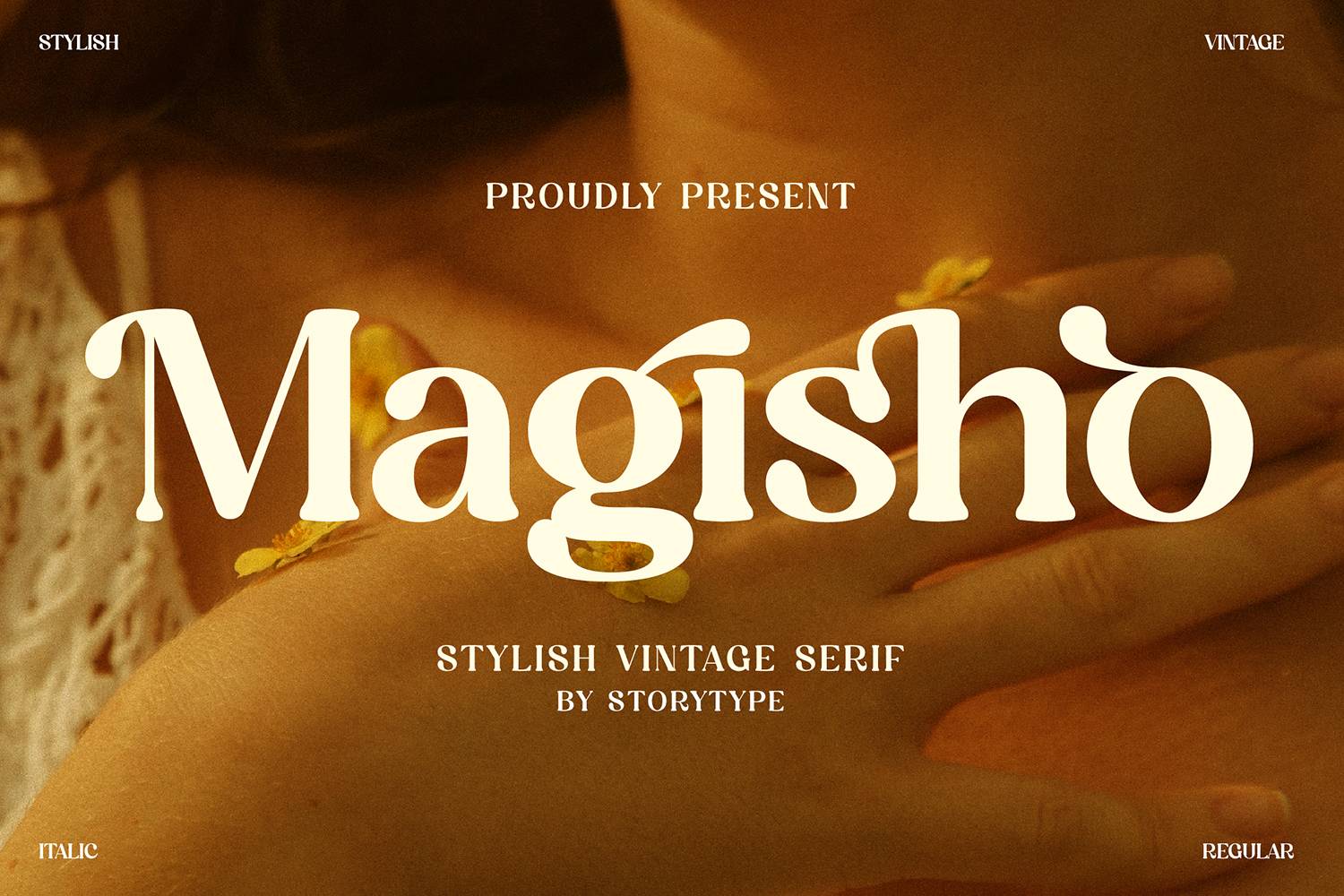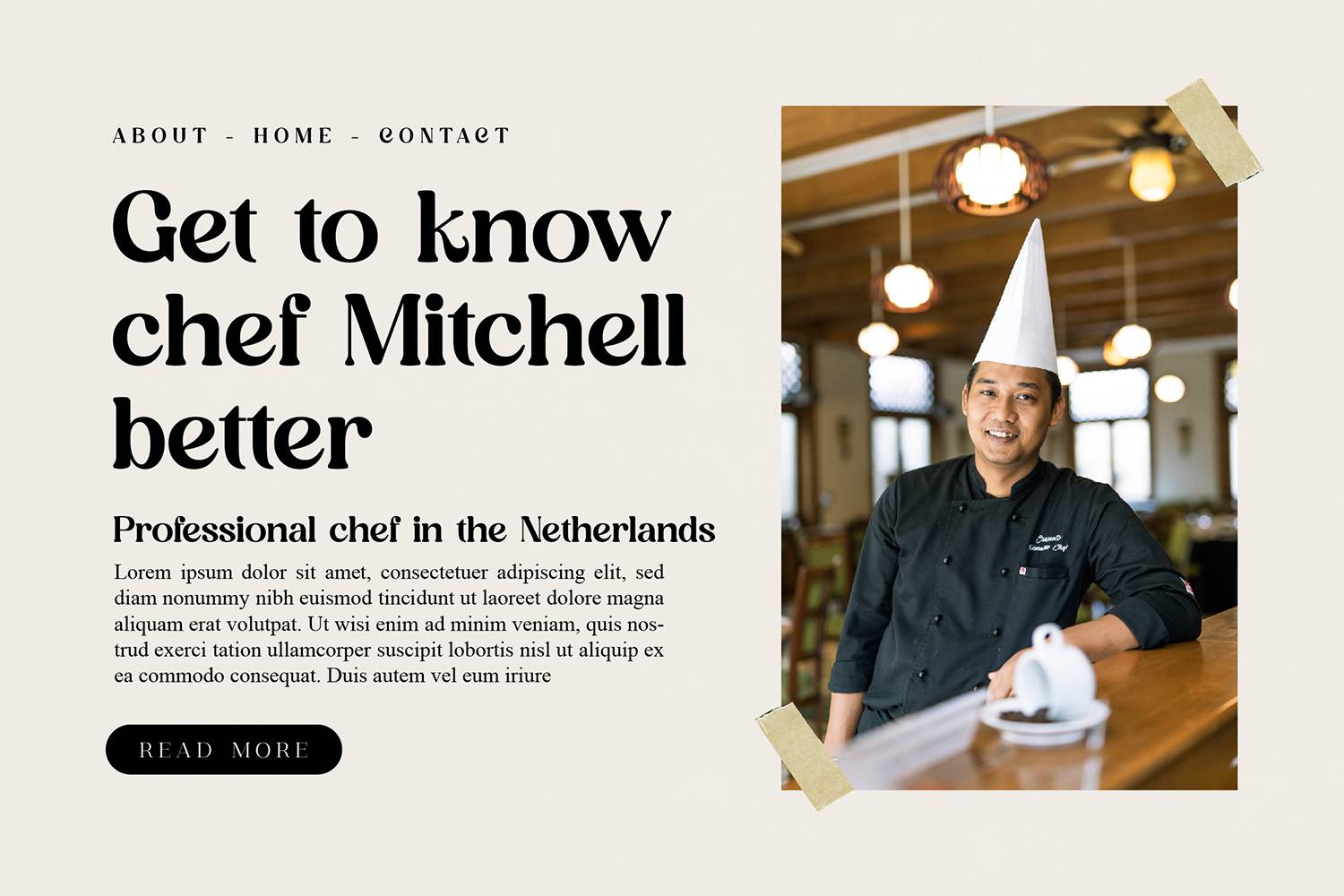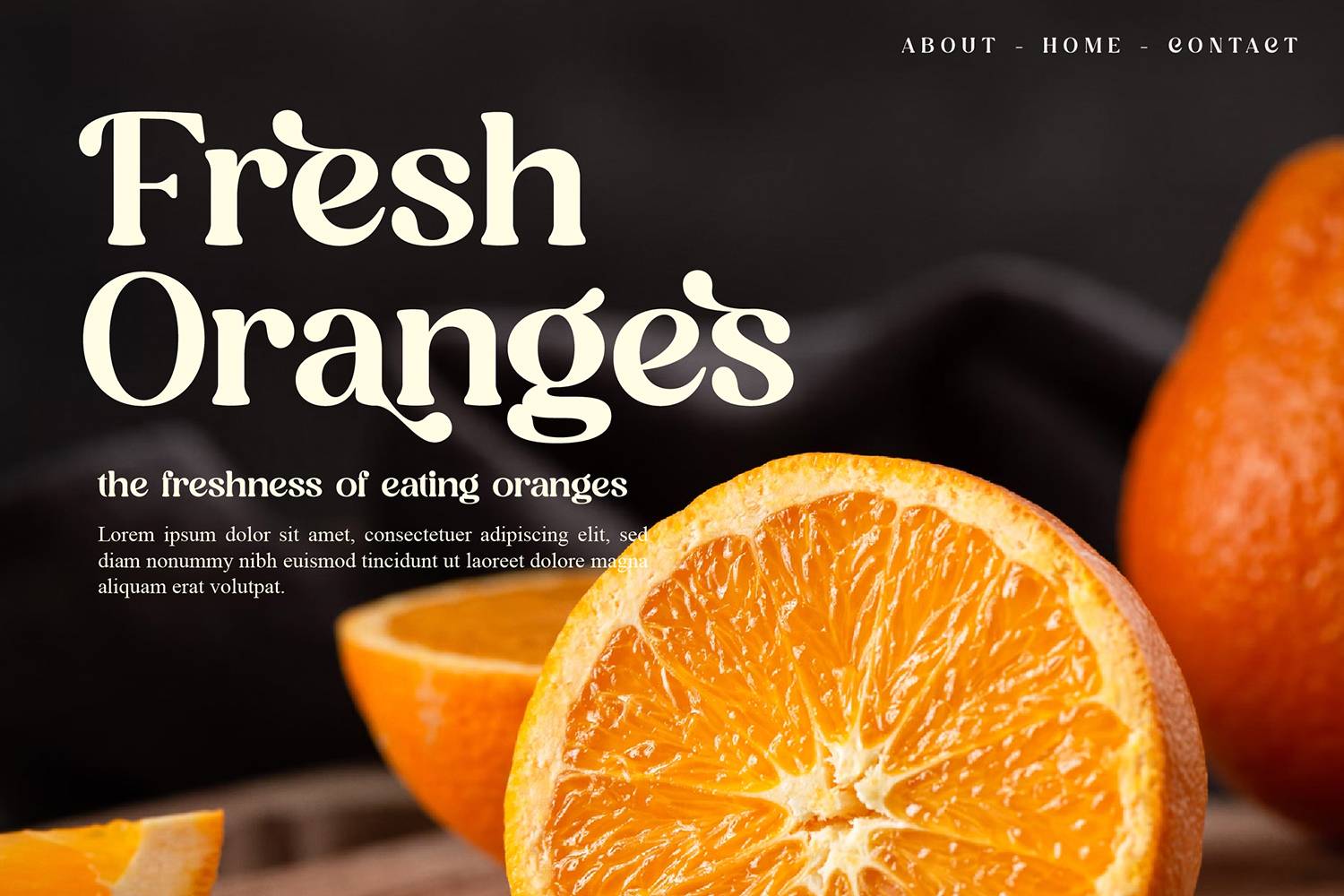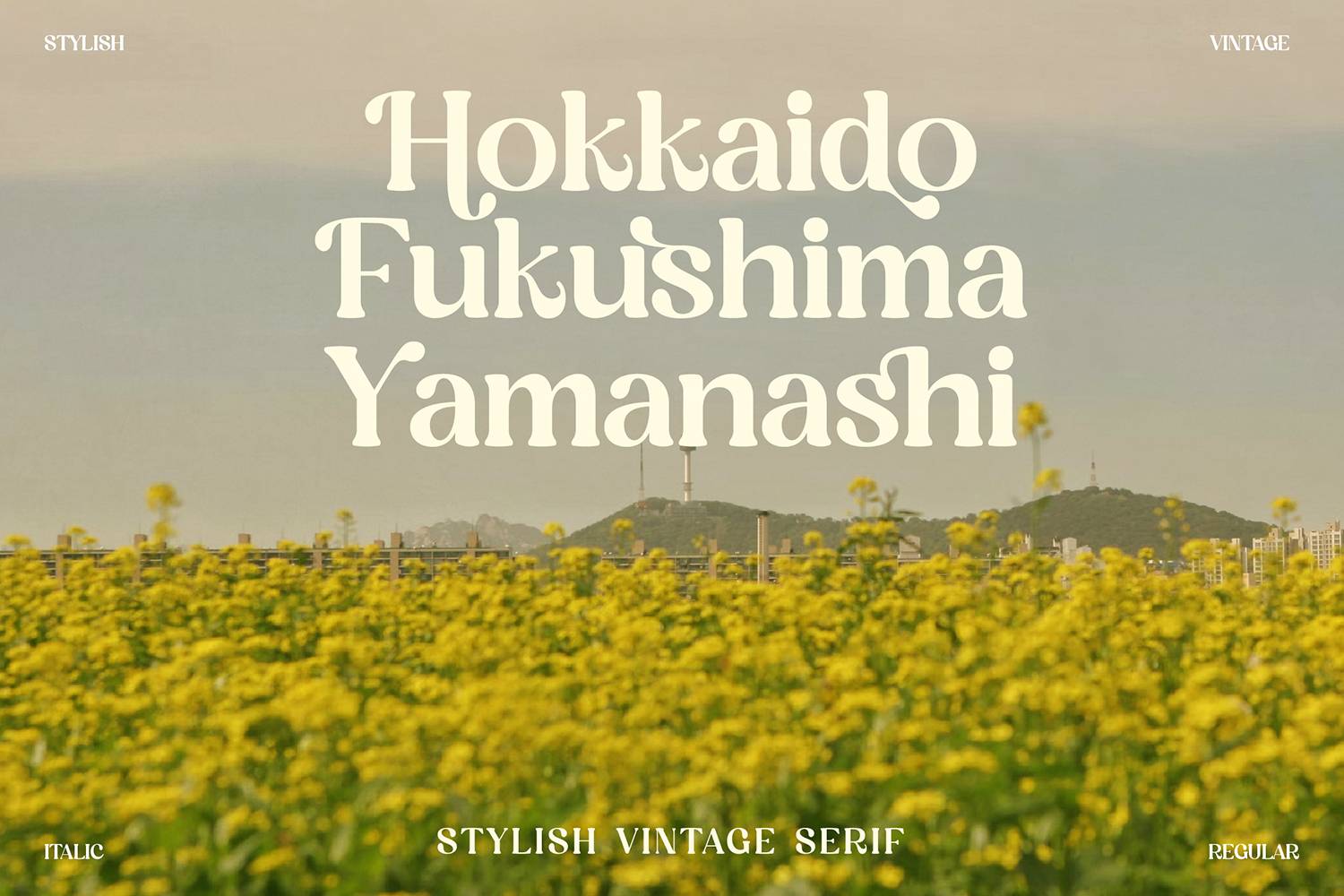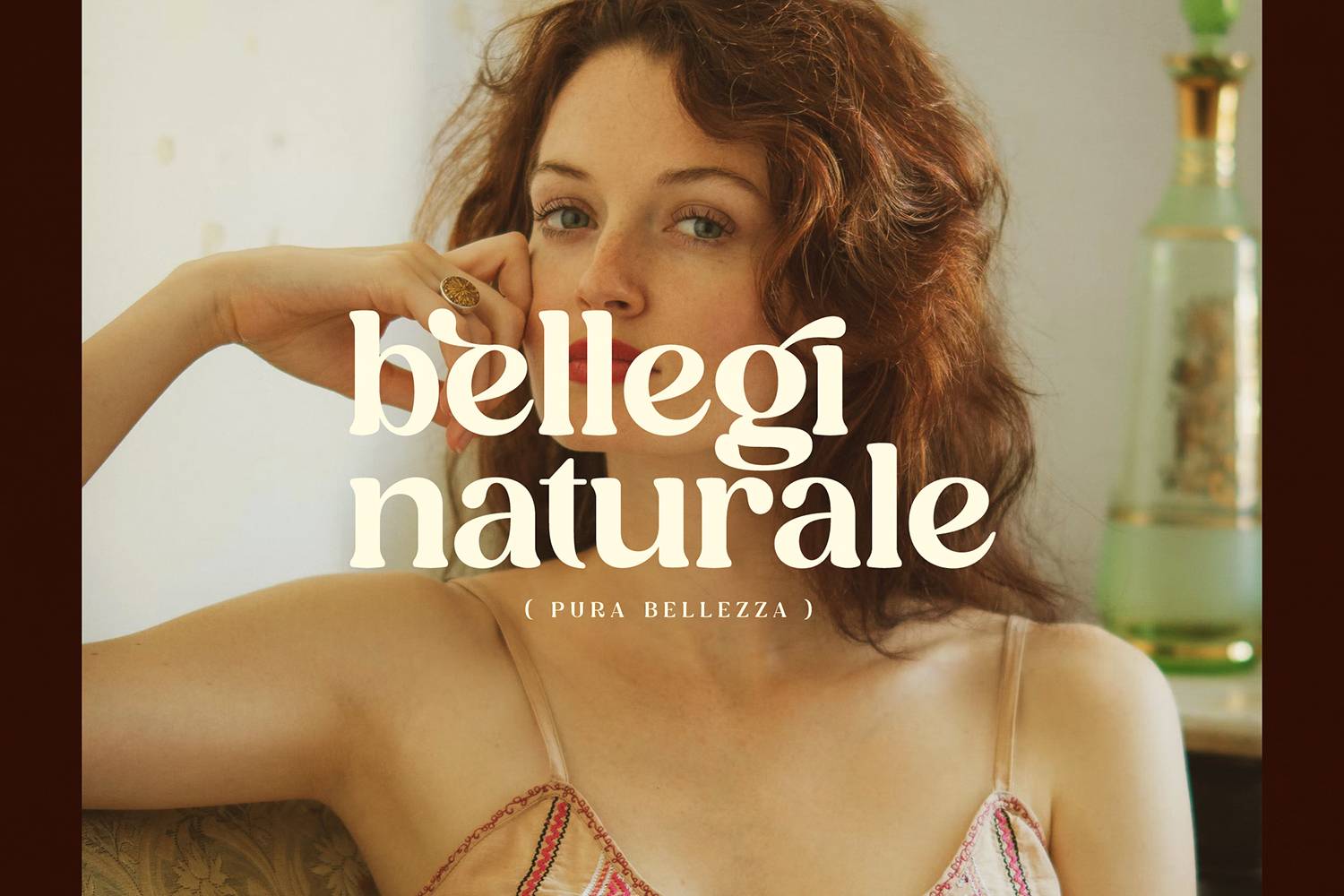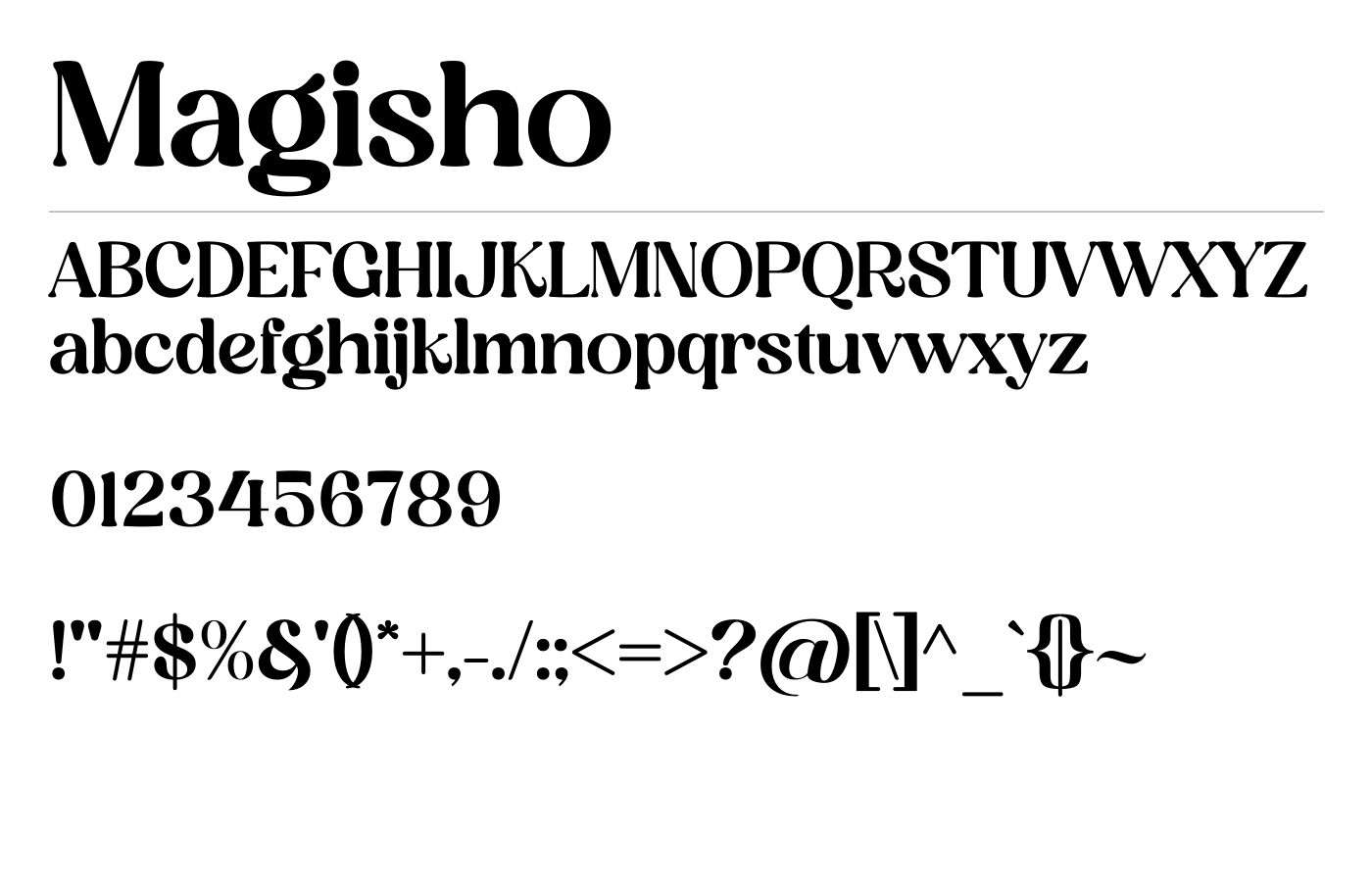
Magisho is a distinctive serif font with a bold weight and moderate contrast, blending classic elegance with a playful twist through its exaggerated serifs and unique letterforms. Its strong presence and slightly condensed proportions make it ideal for headlines, logos, and editorial use where a mix of sophistication and character is desired. This font works well in branding and print design, conveying a refined yet approachable personality.
Magisho Font
About Magisho Font